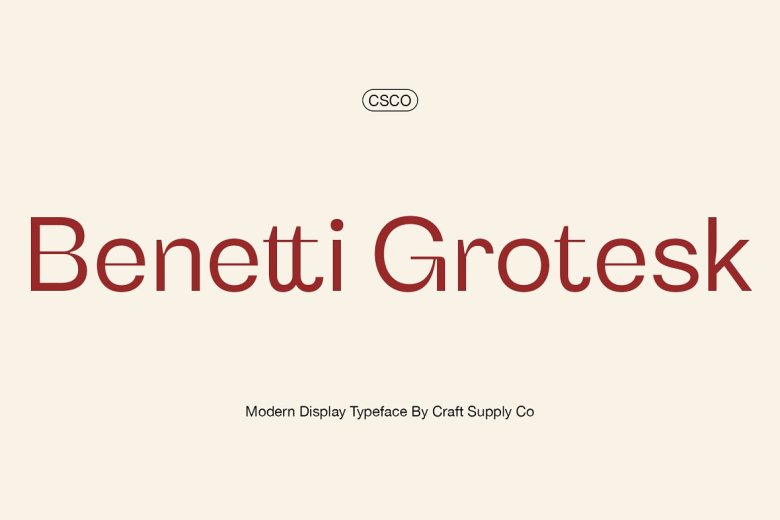
Benetti Grotesk Font
Benetti Grotesk is the best sans serif to express your desire for originality. It is a modern sans serif inspired by grotesque typeface construction and with few contemporary sense in the details that make it more rational to utilized as a display typeface.
Benetti Grotesk Sans Serif Font